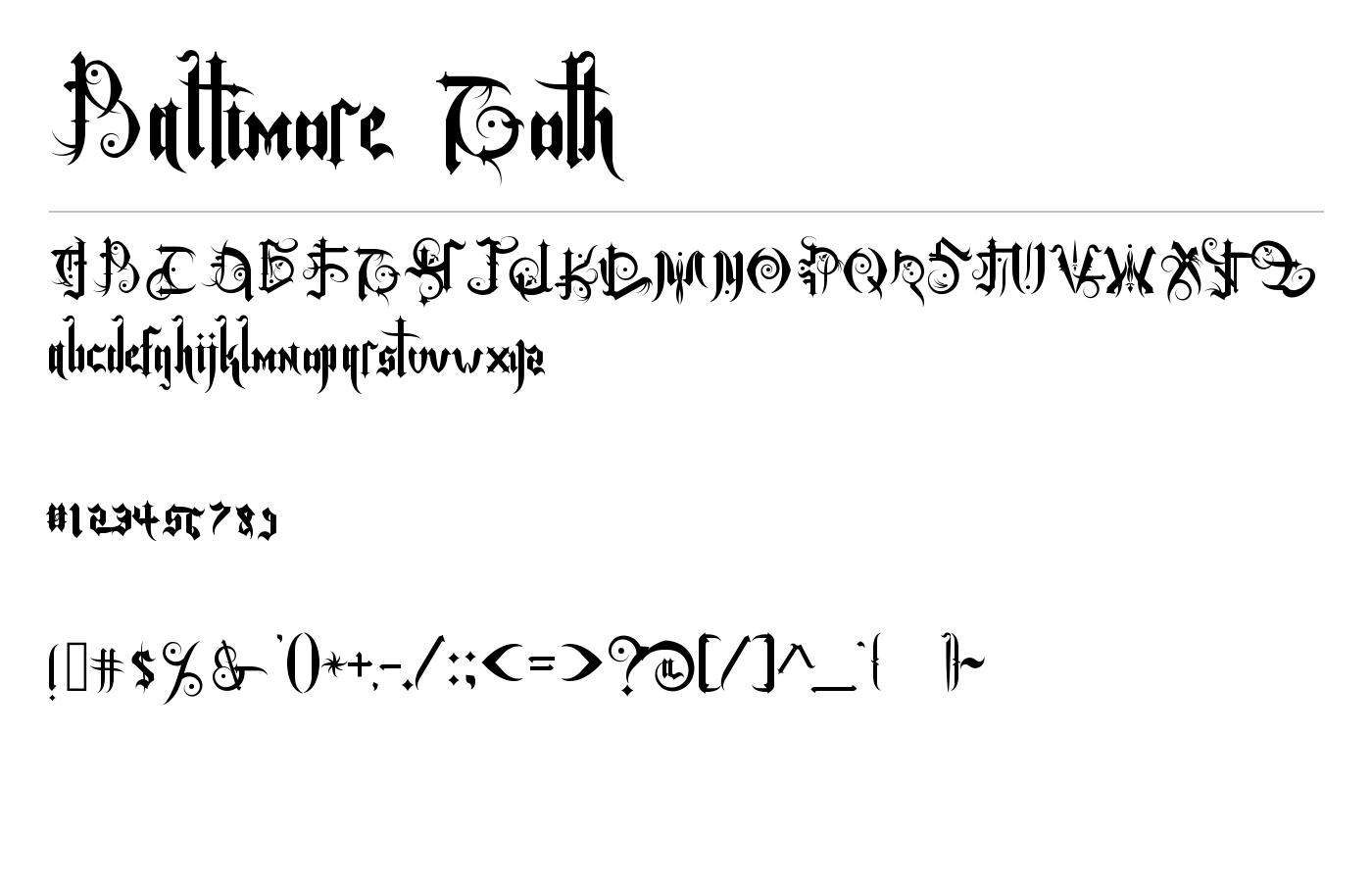
Baltimore Goth is a highly decorative blackletter serif font that combines traditional gothic letterforms with intricate spike and swirl embellishments, creating a dark, dramatic, and edgy look. Its bold weight and sharp, angular strokes make it perfect for eye-catching headlines, logos, and designs that demand a vintage or gothic aesthetic with a modern twist. This font works best in creative projects like posters, branding, and any context where a strong, theatrical, and mysterious vibe is desired.
Baltimore Goth Font
About Baltimore Goth Font